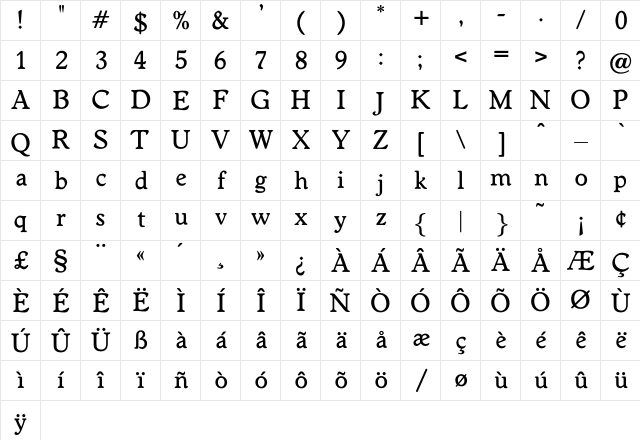
OPTIWorcester-RoundSLMed softens its letterforms with rounded terminals, giving it an approachable, friendly quality that works well in consumer-facing and digital contexts.
Font Pairing: Pairs well with a rounded or humanist sans for body copy, maintaining the friendly tone without relying on OPTIWorcester-RoundSLMed to carry extended reading.
Pro Tip: Use OPTIWorcester-RoundSLMed for UI elements, app interfaces, and anywhere a friendly, approachable tone needs to be maintained without sacrificing clarity.